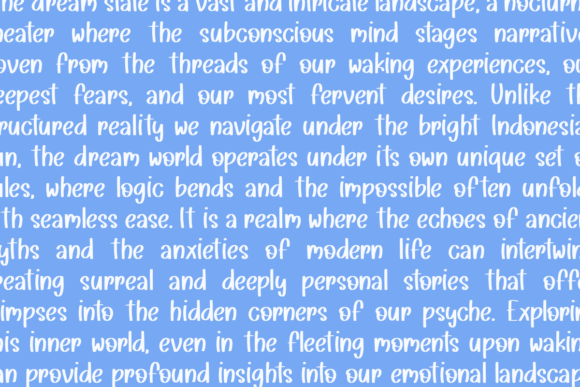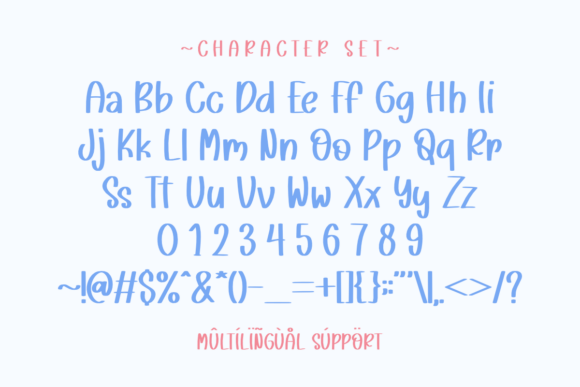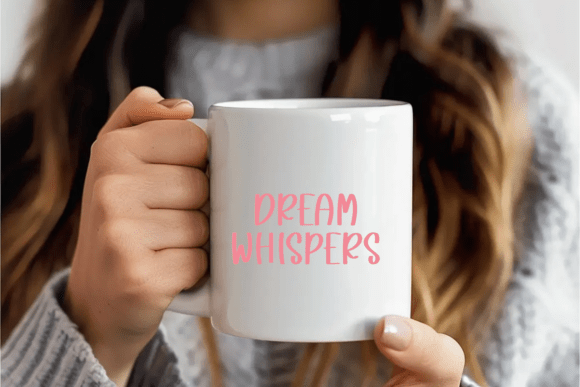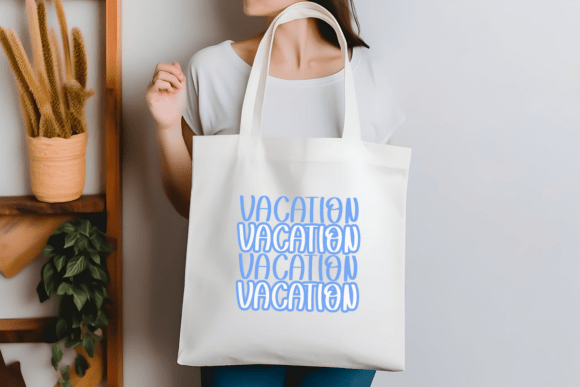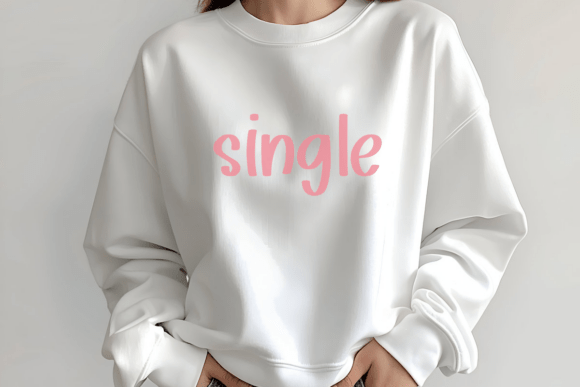
Dream State Font: The Soft and Dreamy Handwritten Font for Your Designs
Are you looking for a font that can bring a calm and whimsical feel to your designs? Look no further than the Dream State Font. This soft and dreamy handwritten font is perfect for a variety of projects, from bedtime stories to planner stickers, kids room decor, and inspirational quotes that feel like a daydream.
The Characteristics of Dream State Font
The Dream State Font is a unique and beautiful handwritten font that is designed to evoke a sense of calmness and serenity. Its soft and dreamy strokes are perfect for creating a whimsical feel in your designs. The font is highly legible, making it perfect for use in a variety of projects, from large titles to small paragraphs of text.
One of the standout features of the Dream State Font is its versatility. It can be used in a variety of contexts, from formal to informal, and can be paired with a range of other fonts to create a unique and eye-catching design. Whether you’re creating a children’s book, a planner, or a inspirational quote, the Dream State Font is sure to bring a touch of magic to your design.
Uses for Dream State Font
The Dream State Font is a versatile font that can be used in a variety of projects. Here are a few ideas to get you started:
- Bedtime Stories: The Dream State Font is perfect for creating bedtime stories that are both soothing and engaging. Its soft and dreamy strokes will help to create a calming atmosphere that is perfect for winding down before bed.
- Planner Stickers: Add a touch of whimsy to your planner stickers with the Dream State Font. Its playful and hand-written feel is perfect for creating stickers that are both fun and functional.
- Kids Room Decor: The Dream State Font is a great choice for kids room decor, including wall art, decals, and other decorative items. Its soft and dreamy strokes will help to create a calming and soothing atmosphere that is perfect for a child’s bedroom.
- Inspirational Quotes: The Dream State Font is also perfect for creating inspirational quotes that feel like a daydream. Its whimsical and playful feel is sure to inspire and uplift, making it perfect for use in motivational posters, social media graphics, and other inspirational materials.
Tips for Using Dream State Font
Here are a few tips for using the Dream State Font in your designs:
- Pair it with bold fonts: The Dream State Font is a great choice for pairing with bold fonts to create a striking contrast. Try pairing it with a bold sans-serif font to create a eye-catching design.
- Use it in combination with images: The Dream State Font is perfect for use in combination with images, particularly those that feature soft, dreamy landscapes or whimsical illustrations.
- Experiment with colors: The Dream State Font is a versatile font that can be used with a range of colors. Experiment with pastel colors, bright colors, and neutral colors to find the perfect combination for your design.
The Dream State Font is a beautiful and versatile handwritten font that is perfect for a variety of design projects. Its soft and dreamy strokes are sure to bring a calm and whimsical feel to your designs, making it perfect for use in bedtime stories, planner stickers, kids room decor, and inspirational quotes. With its high legibility and versatility, the Dream State Font is a great choice for designers and crafters looking to add a touch of magic to their designs.